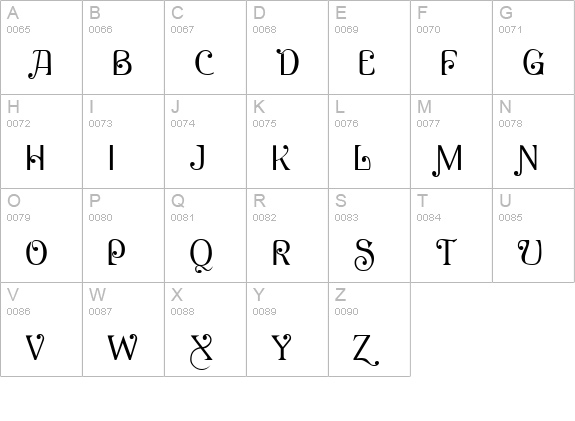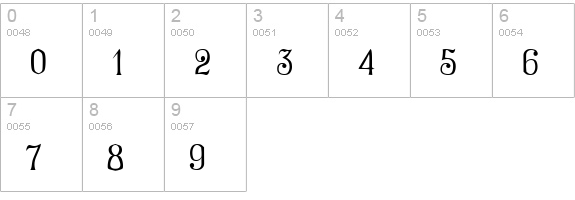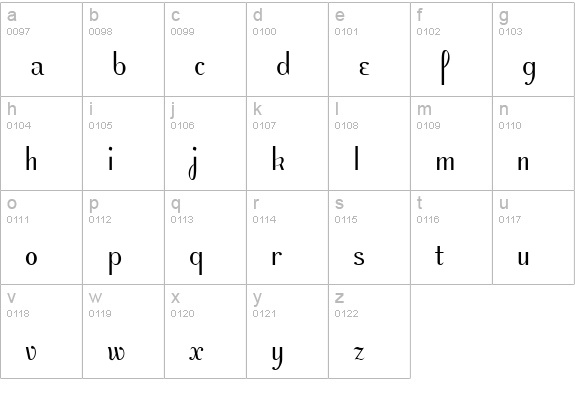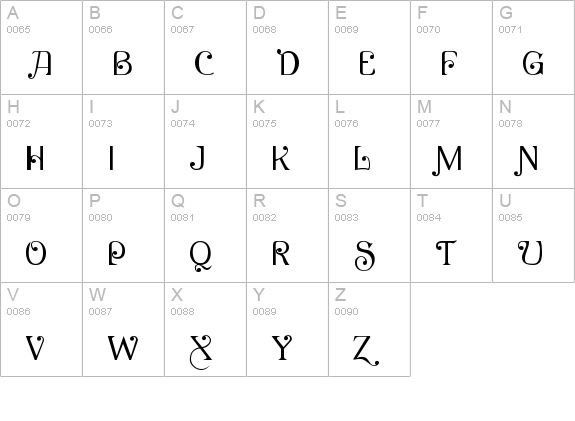
AcornSwashAltern Regular Font Details
AcornSwashAltern Regular is the standard, neutral variant in the AcornSwashAltern typeface family \xE2\x80\x94 well suited to general body text, paragraphs, and standard typographic work.
AcornSwashAltern Regular font is a charming and versatile typeface that exudes a sense of elegance and sophistication. With its unique swash alternates and graceful curves, this font is perfect for adding a touch of class to your designs. Whether you're working on invitations, branding materials, or any other project that requires a touch of flair, AcornSwashAltern Regular is sure to impress. The best part? This stunning font is available for free download at FontsMarket.com. So go ahead and elevate your design projects with the timeless beauty of AcornSwashAltern Regular.